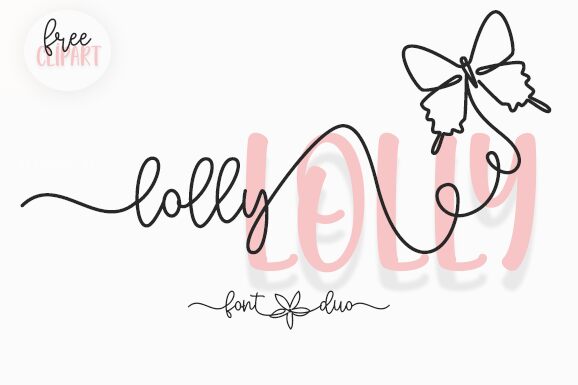
Lolly Display
Lolly Display, the captivating creation of renowned designer Fillo Graphic, is a charming handwritten font that exudes personality and creativity. With its condensed width, Lolly Display is ideal for projects that demand a touch of uniqueness and a hint of playfulness. This delightful font typeface lends itself perfectly to children's books, whimsical invitations, eye-catching packaging designs, and vibrant advertisements. Whether you're crafting a logo for a trendy boutique or designing an engaging poster for an art exhibition, Lolly Display will bring your creations to life with its distinctive charm and versatility.